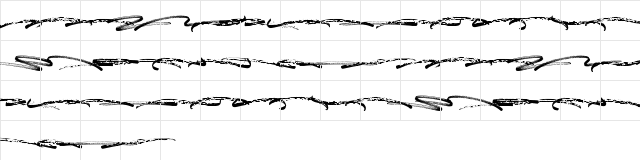
Blastimo Swash Regular
Foundry: Debut Studio
Design Context for Blastimo Swash
Blastimo Swash flows with the natural rhythm of handwritten lettering, making it ideal for designs that call for warmth and personal expression.
Font Pairing: Combine Blastimo Swash with a simple geometric sans for maximum contrast - the tension between flowing curves and clean structure is a classic typographic pairing.
Pro Tip: Use Blastimo Swash for short runs of text - names, titles, or taglines. Extended body copy in script faces tires the eye quickly.